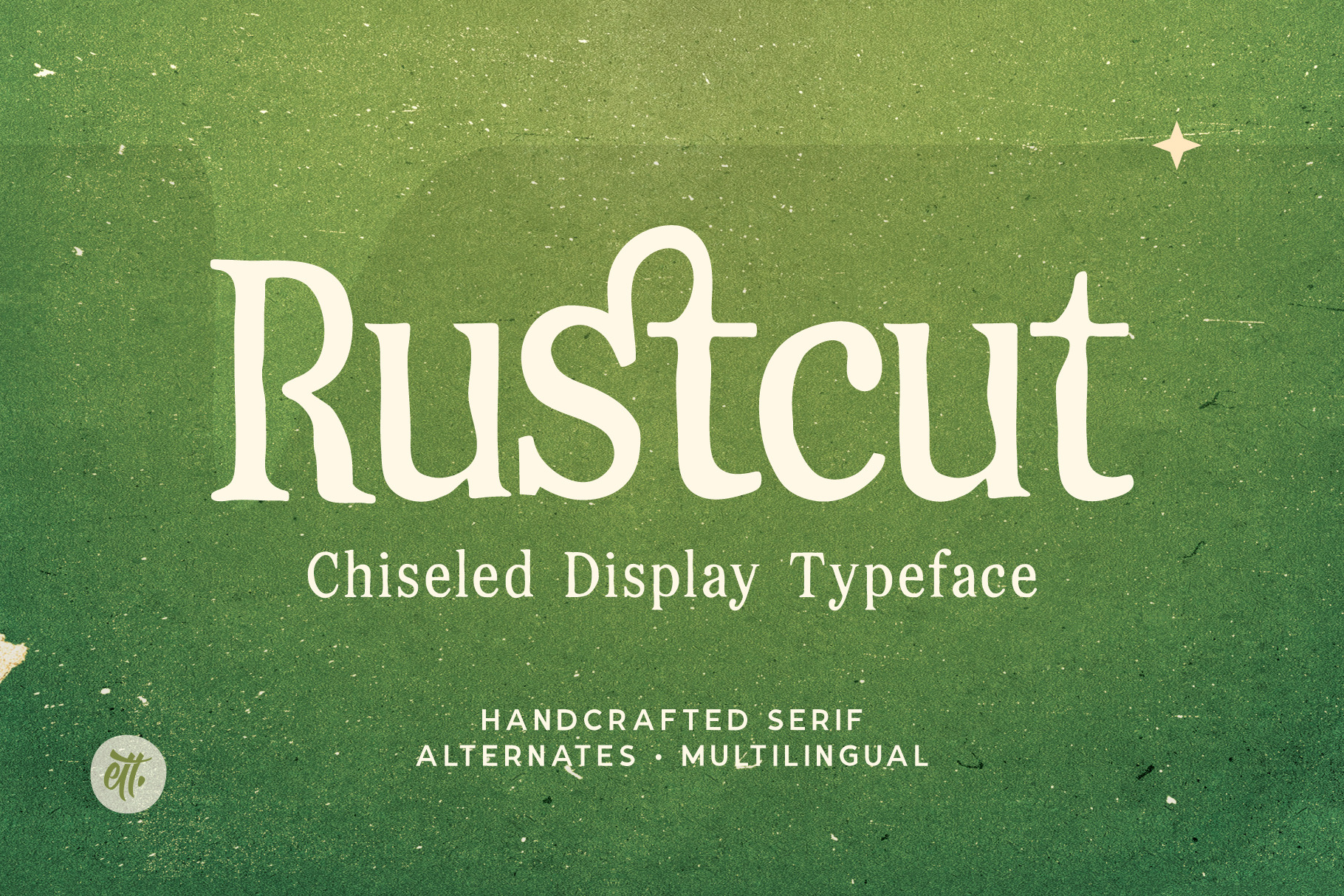
Rustcut - Serif Font
Rustcut– Chiseled Display Serif Font
Rustcut is a handcrafted display serif with chiseled edges and organic elegance. Designed to bring character and distinction to editorial layouts, boutique branding, product packaging, and creative headlines, Rustcut merges a classic serif structure with imperfect, human warmth. Use it in magazine titles, vintage-inspired logos, artisan labels, or gig posters that demand personality.
- Numerals & punctuation
- Ligatures & stylistic alternates
- Organic serif cuts for unique visual identity